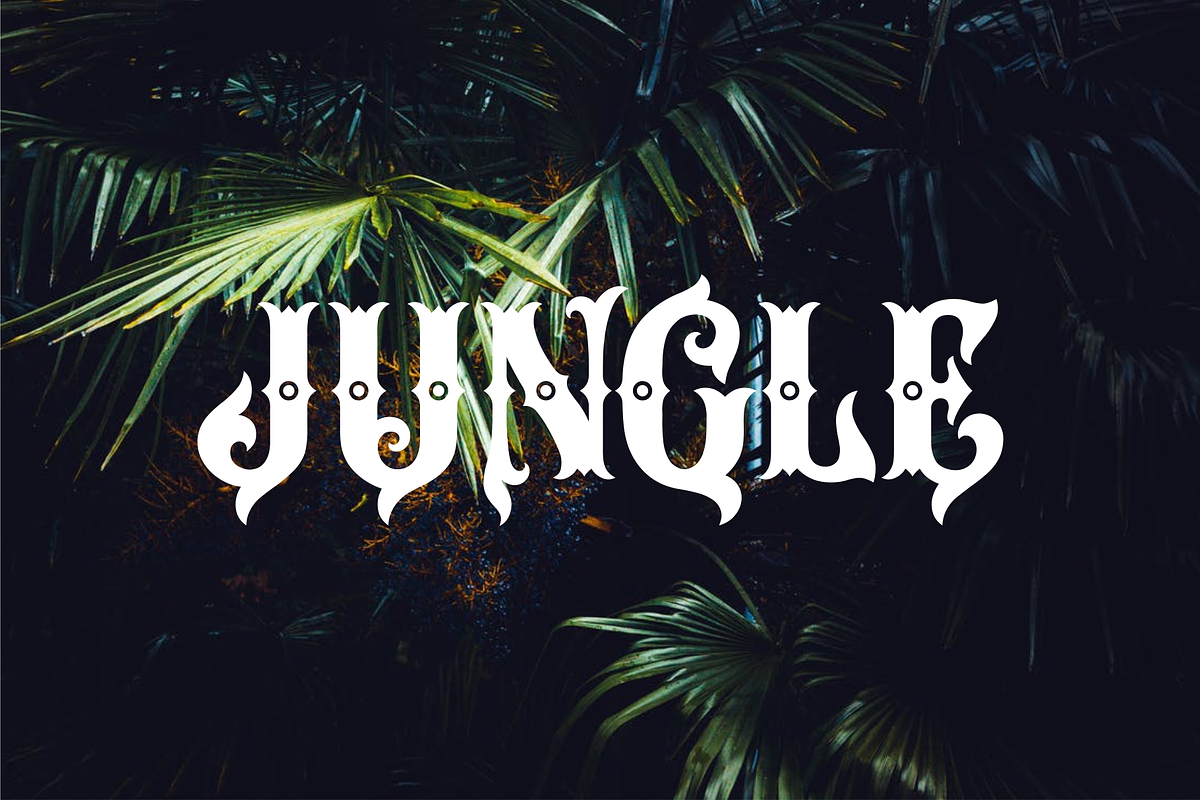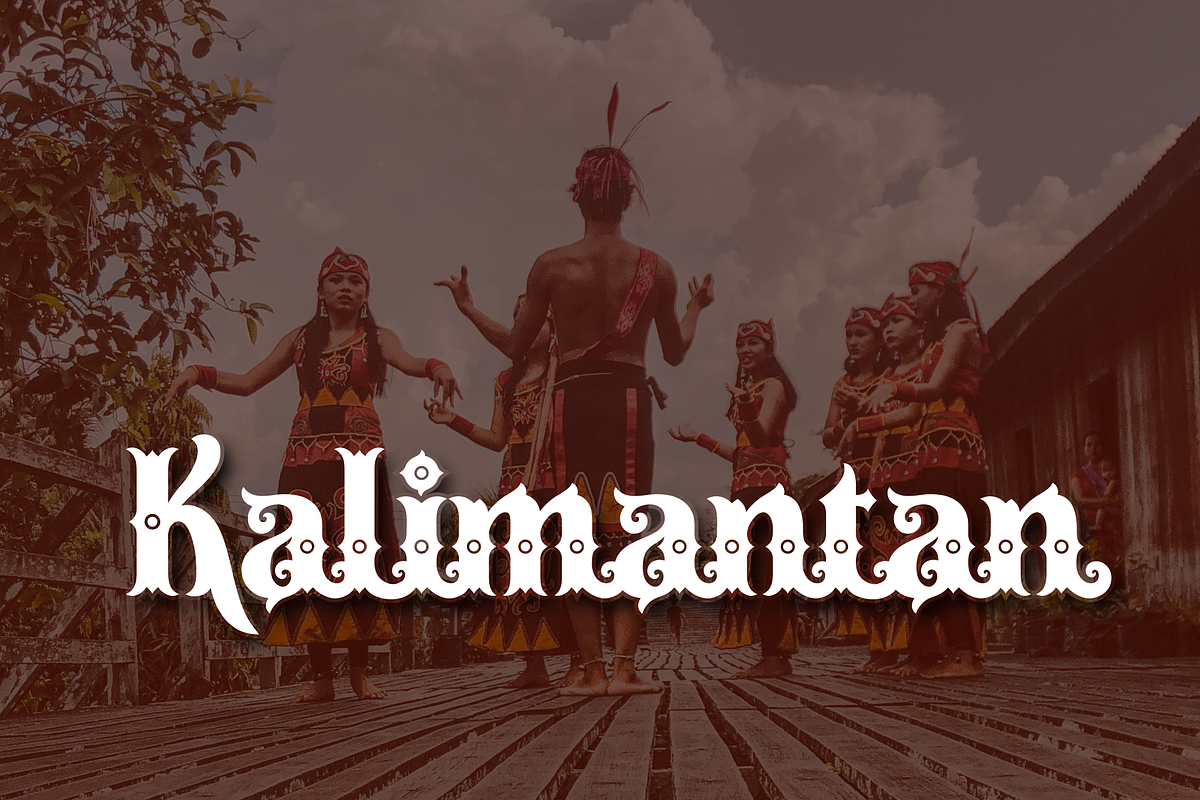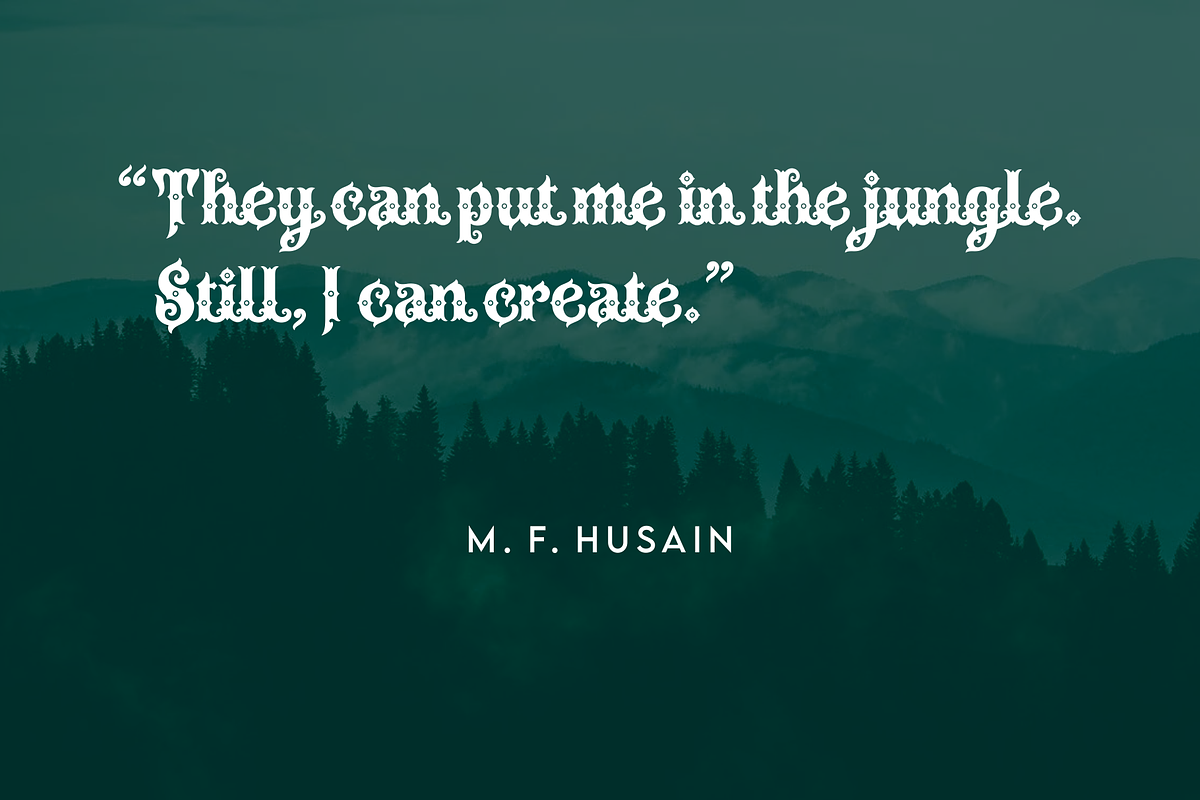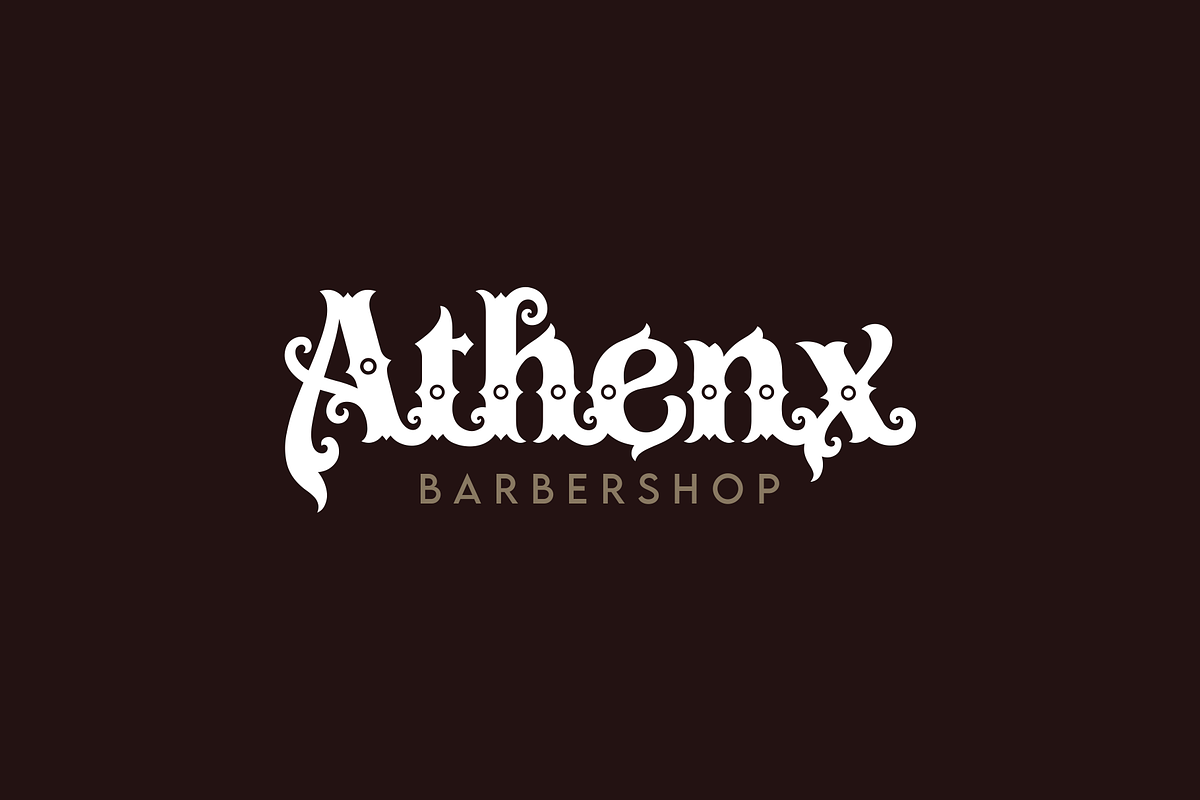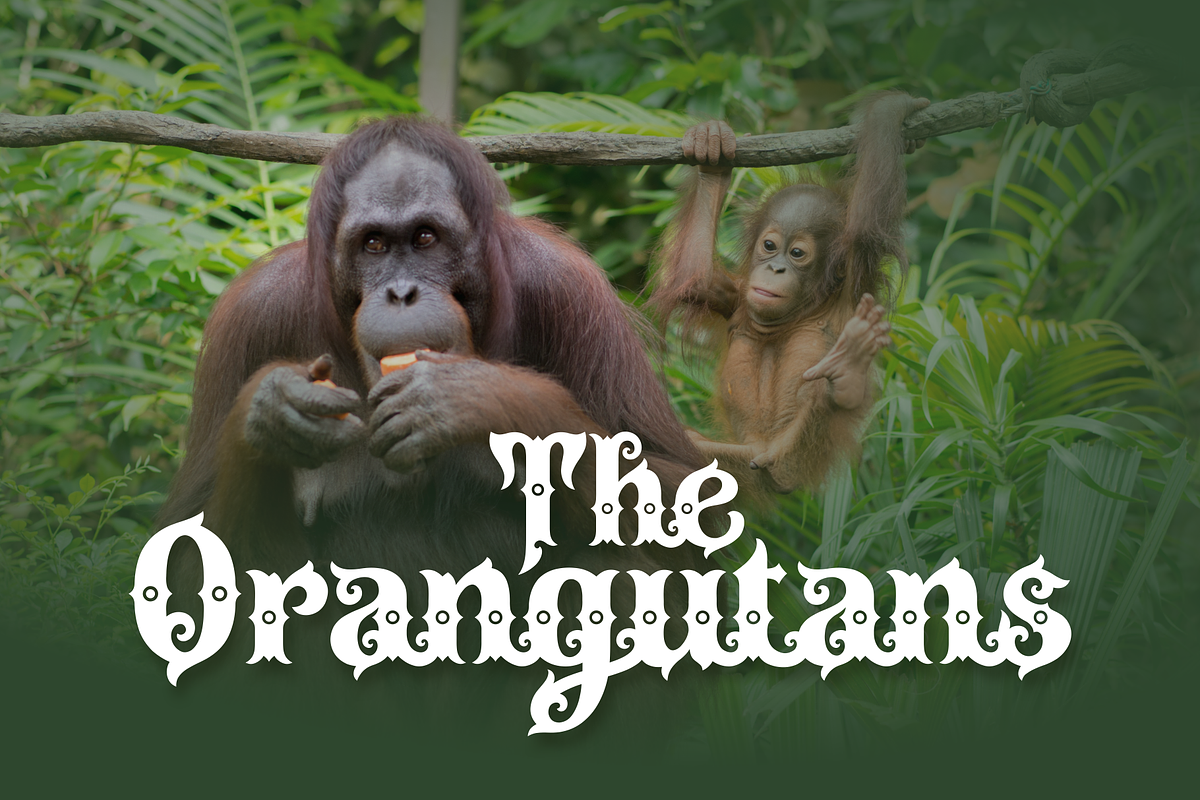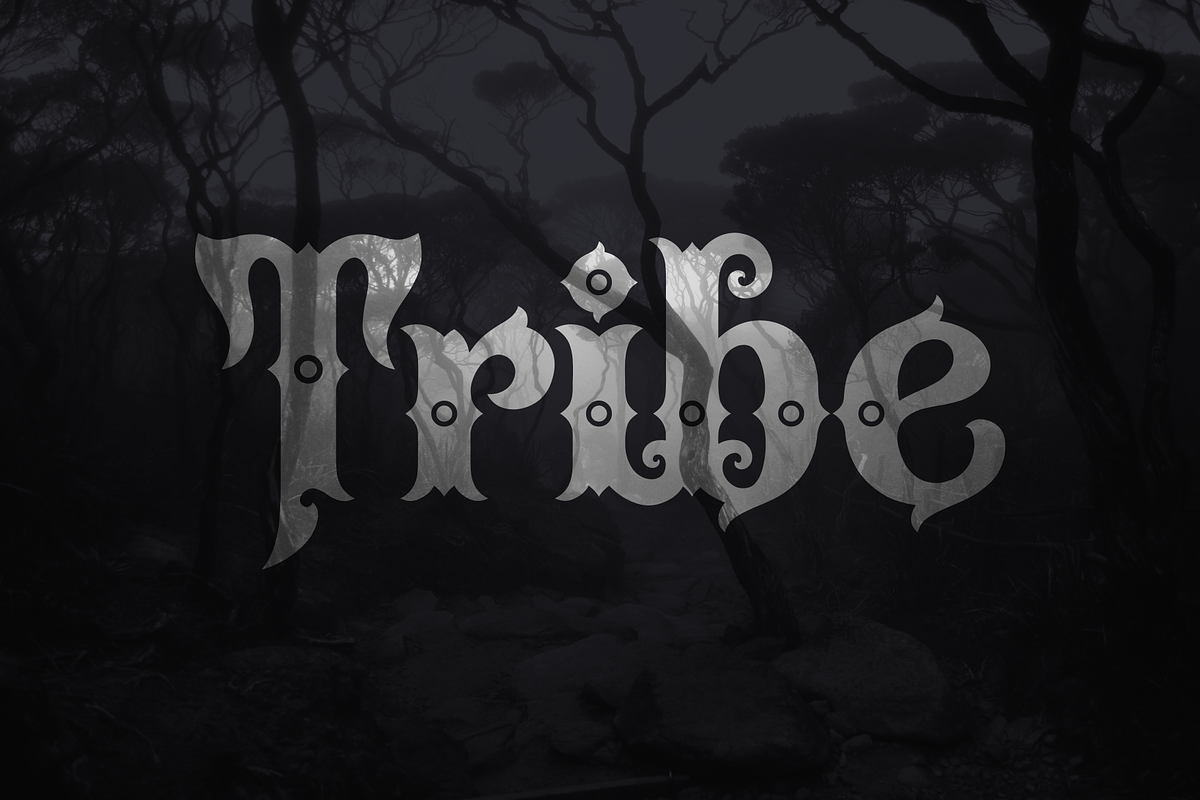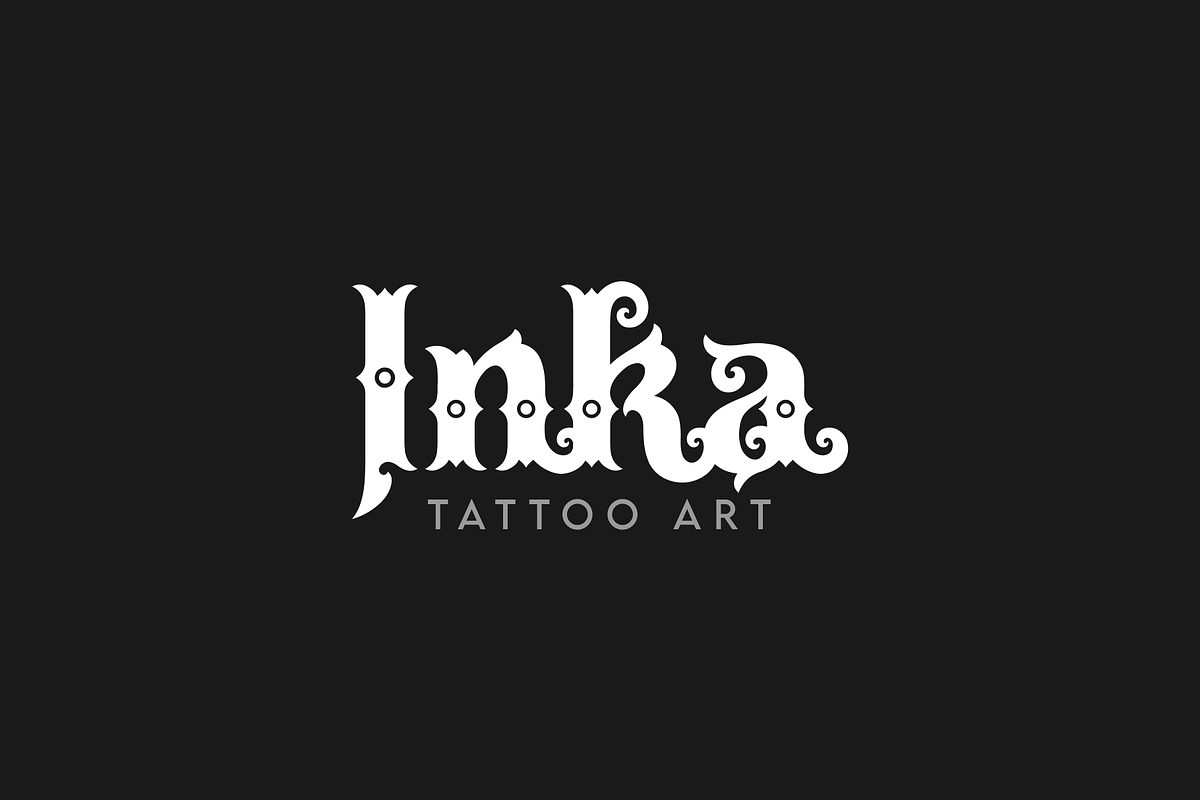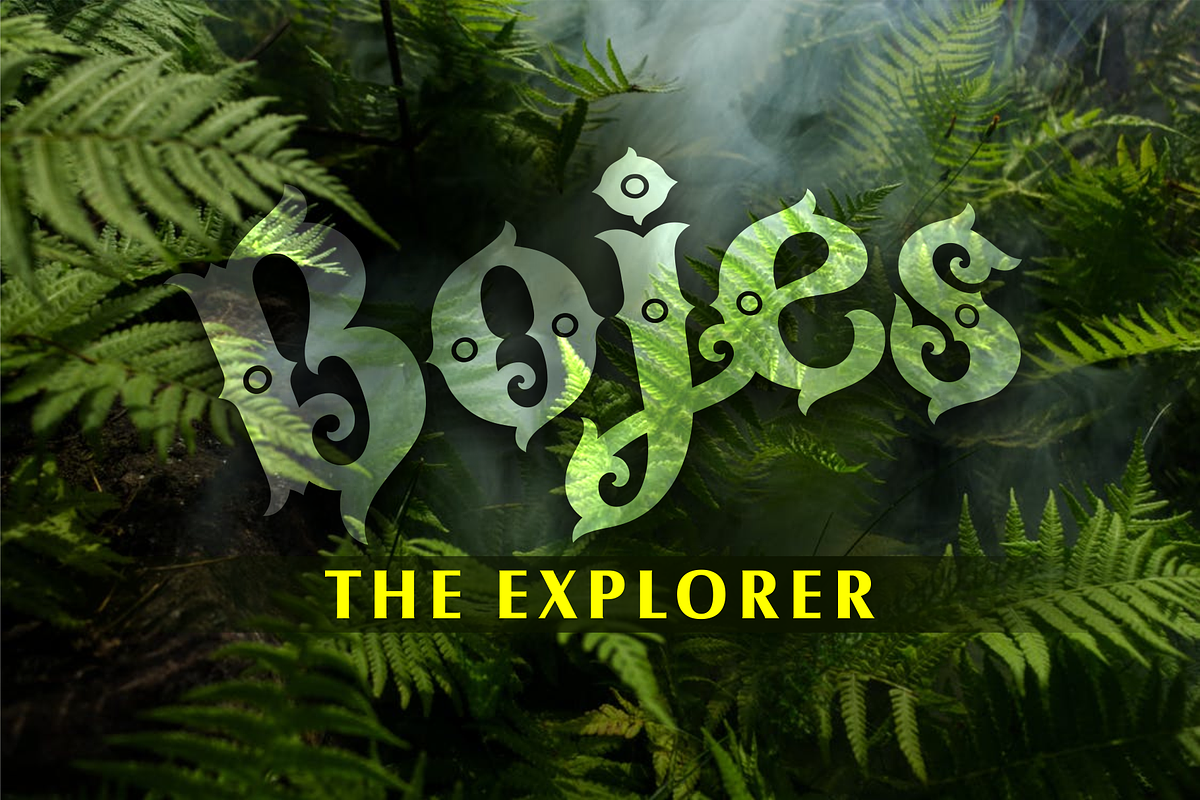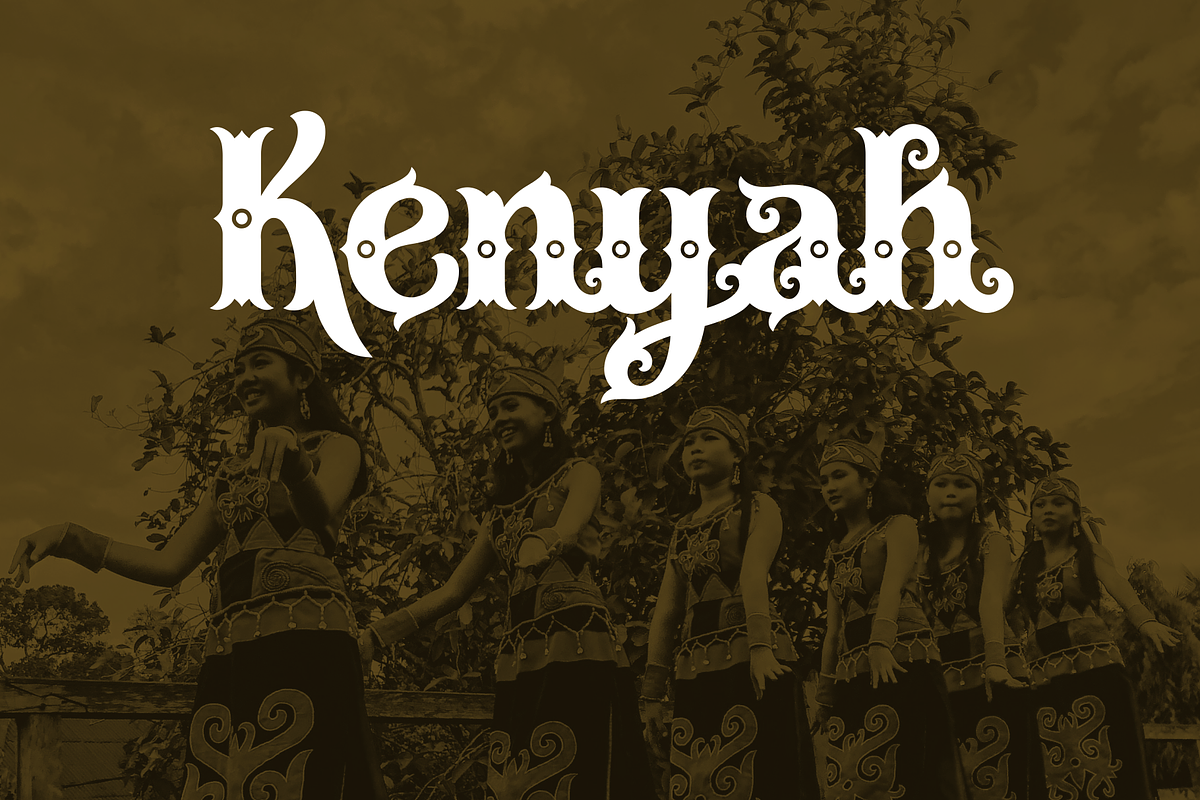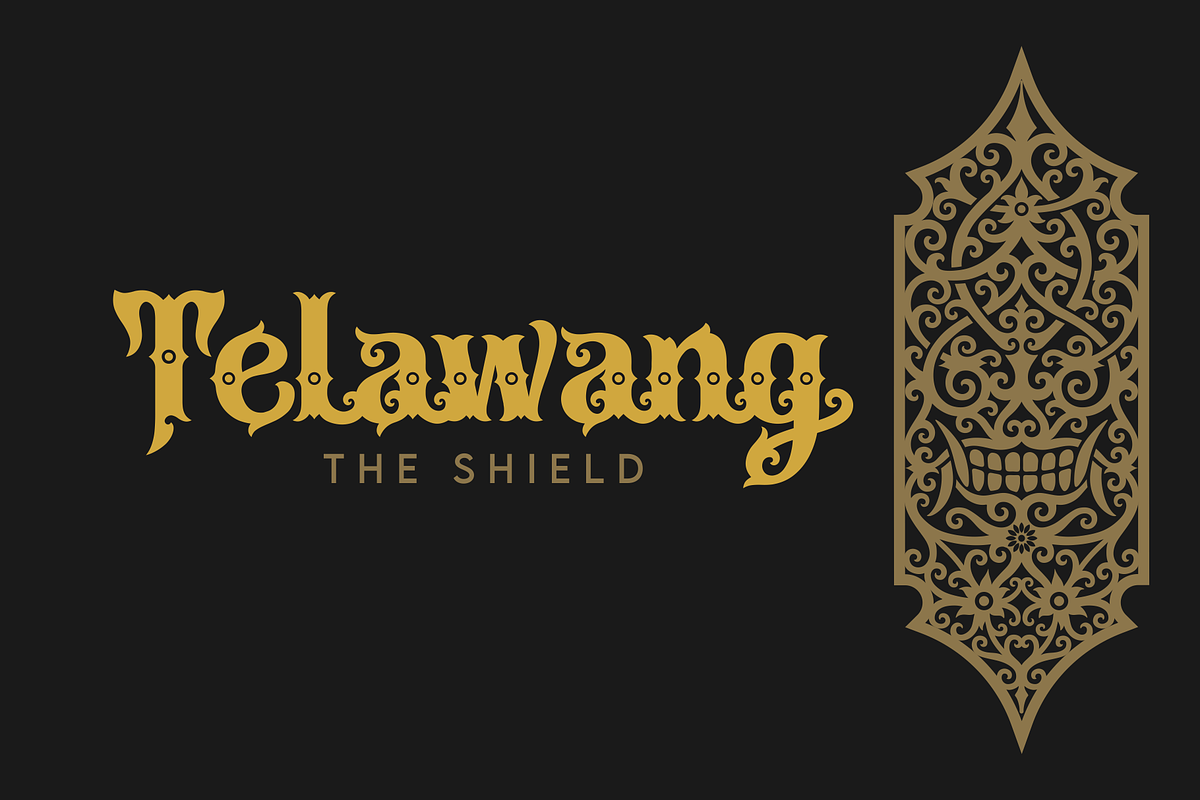
Borneo Dayak
Borneo Dayak Font is a decorative font inspired by the very distinctive traditional art of the Dayak tribe in Borneo or Kalimantan, Indonesia. with its unique style makes it look elegant throughout the ages. its perfect for any design project.